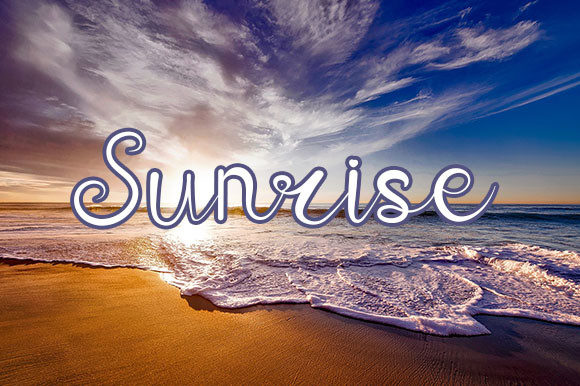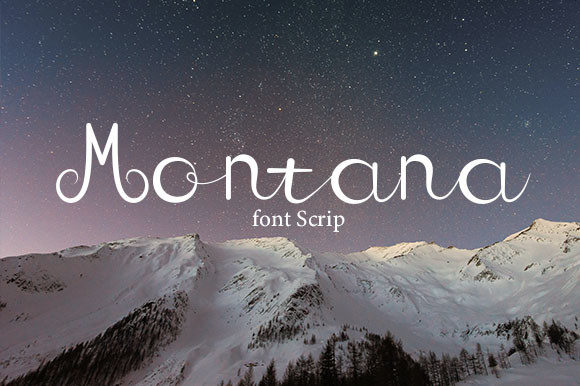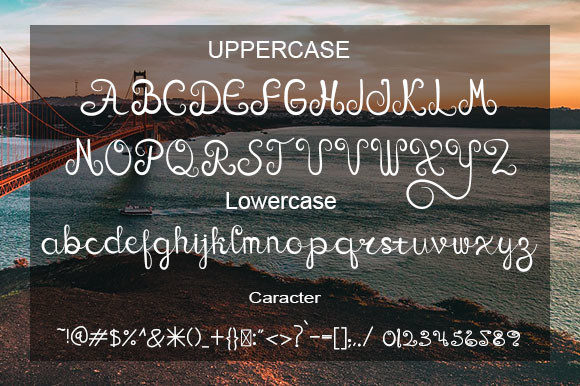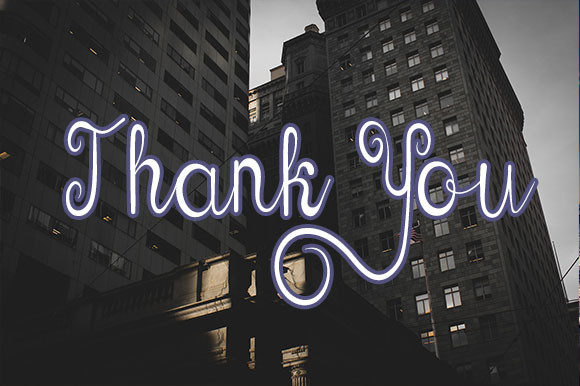
The Ultimate Guide to California Font: Elevate Your Designs with this Whimsical Script Font
I’ll never forget the time I was working on a project for a client who wanted a font that exuded a relaxed, West Coast vibe. I scoured the internet, tried out countless fonts, but nothing seemed quite right. That was until I stumbled upon California Font. It was like a breath of fresh air – the perfect blend of whimsy and sophistication. In this article, I’ll share my love for California Font, its features, and how to make the most of it in your designs.
An Honest Review of California Font
- ✨ Unique and eye-catching style: California Font has a one-of-a-kind, relaxed theme that’s perfect for designs that need a touch of personality.
- ✅ Versatility: Whether you’re working on a logo, brochure, or social media graphics, California Font adapts seamlessly to any project.
- 💫 Elegant and whimsical: This font strikes the perfect balance between elegance and playfulness, making it suitable for a wide range of design applications.
While California Font is an amazing addition to any design library, there are a few things to keep in mind:
- 🤔 Legibility at small sizes: Like many script fonts, California Font can become a bit tricky to read at very small sizes. It’s best used at larger sizes or for headlines.
- ⚠️ Pairing with other fonts: As with any script font, it’s essential to choose complementary fonts that don’t compete with California Font’s unique style.
The Story Behind California Font
California Font was designed with the intention of capturing the laid-back, sun-kissed essence of the Golden State. The designer aimed to create a font that was both elegant and whimsical, perfect for designs that needed a touch of personality. Whether you’re a designer, crafter, or creative hobbyist, California Font is sure to become a favorite in your font library.
| Font Name | California Font |
| Author | Almahyra Studio |
Q: What type of projects is California Font best suited for?
A: California Font is incredibly versatile and can be used for a wide range of projects, from logos and branding to social media graphics and print materials.
Q: Is California Font suitable for body text?
A: While California Font is beautiful, it’s best used for headlines or short paragraphs. For longer body text, a more traditional font might be more suitable.